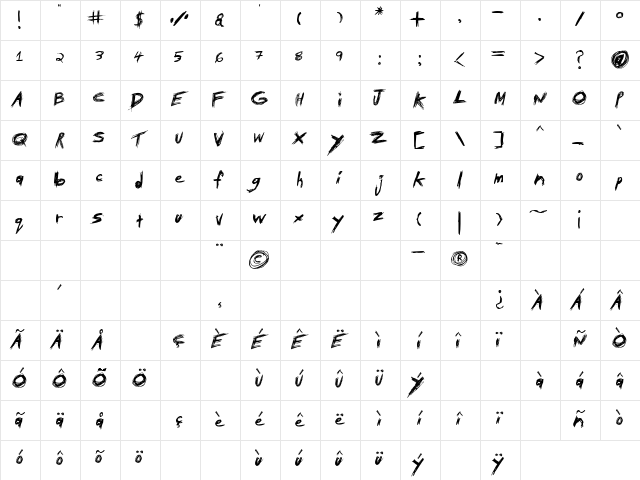
Tibetan Beefgarden AOE Regular
Design Context for Tibetan Beefgarden AOE Typeface
Tibetan Beefgarden AOE is a composed and adaptable typeface that performs quietly and consistently across a wide range of design contexts.